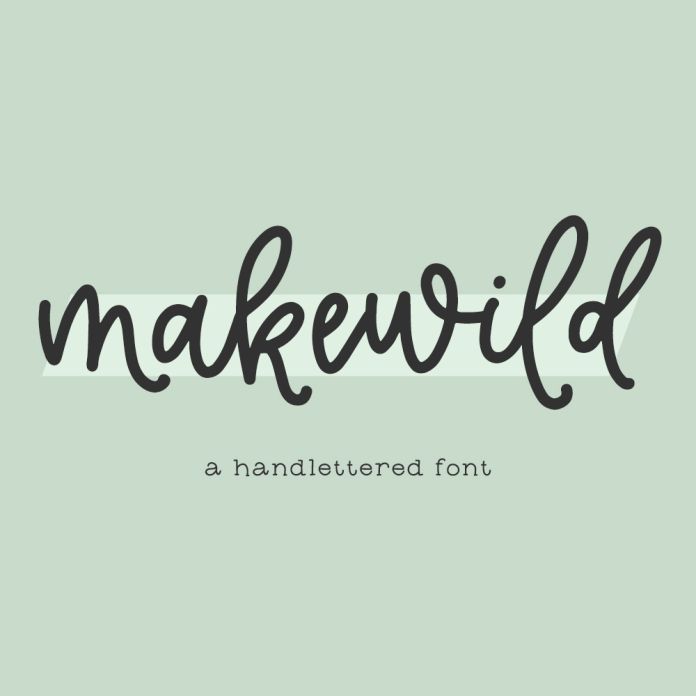
Introducing Makewild, a monoline modern calligraphy font with alternates & ligatures. Makewild’s flourished characters add a sweet, feminine touch to your project.
Makewild is best for:
Makewild includes:
- 26 alternates
- 17 ligatures - ad, dd, ed, hd, hg, id, ik, it, kd, md, nd, nk, od, td, tg, th, tt